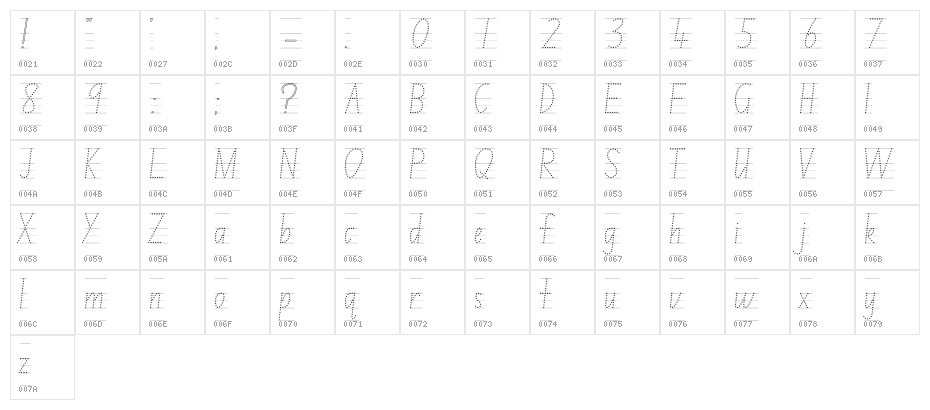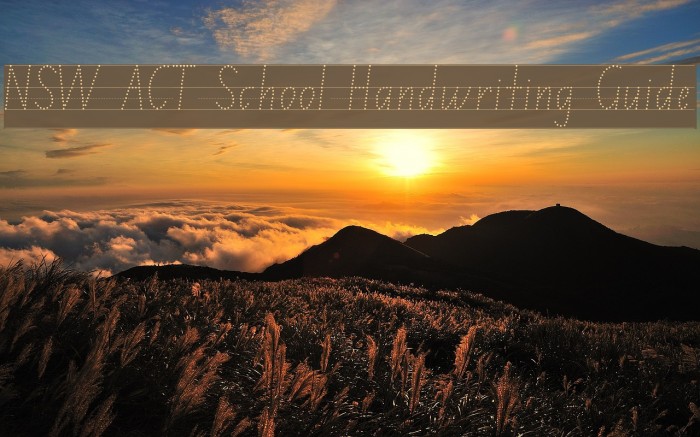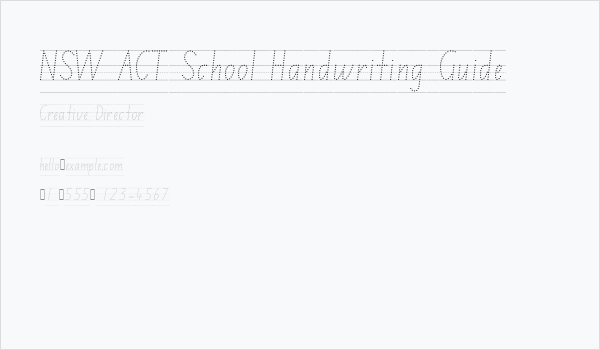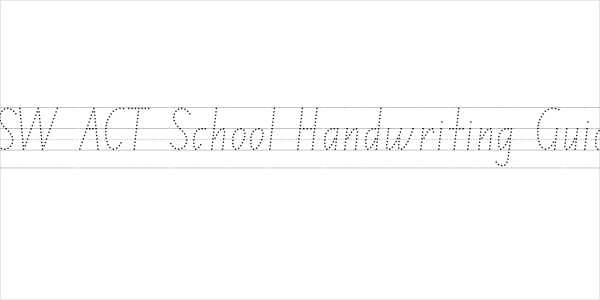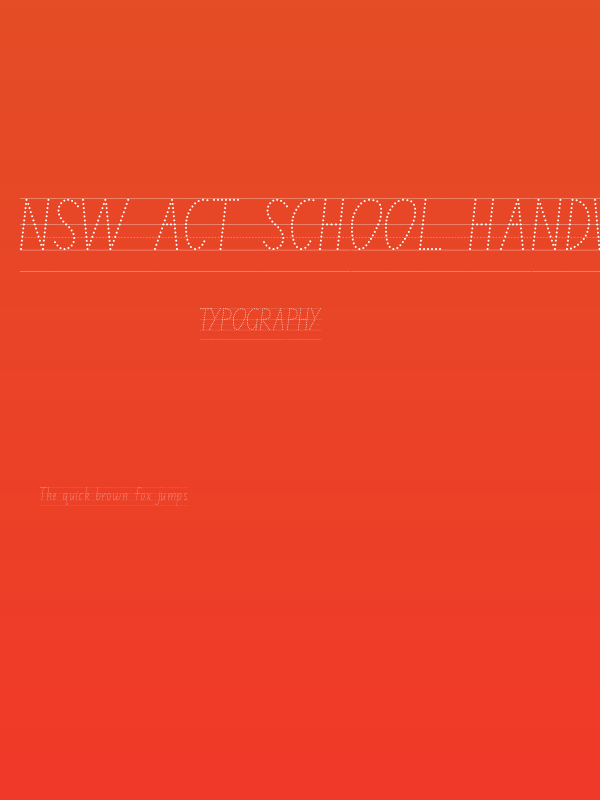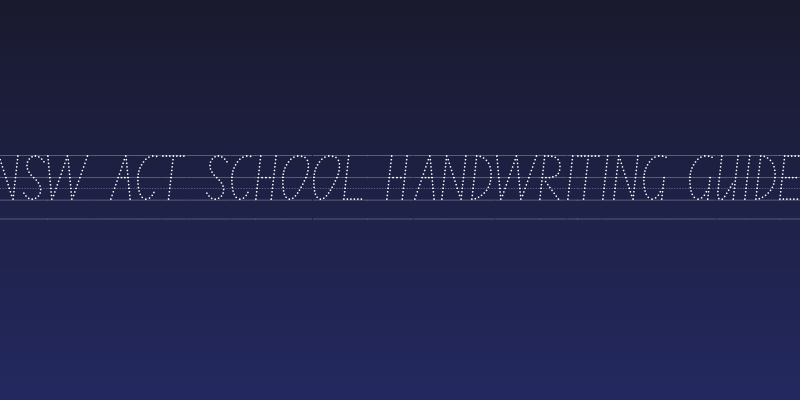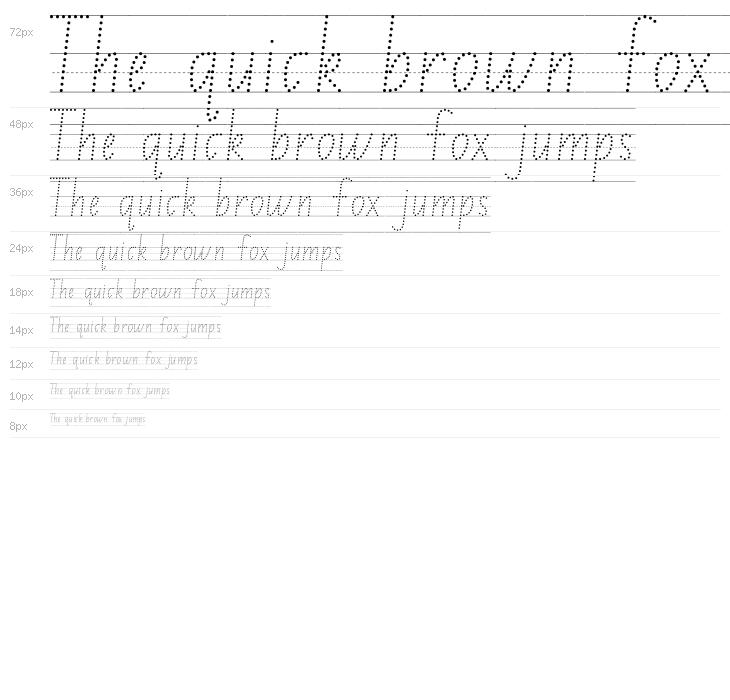
NSW ACT School Handwriting Guide Font
NSW ACT School Handwriting Guide Description
This font is designed as a handwriting guide, featuring dotted lines to assist in learning letter formation. Each character is constructed with evenly spaced dots, providing a clear path for tracing. The uppercase and lowercase letters are crafted to align with traditional handwriting styles, emphasizing clarity and simplicity. The numerals and special characters follow the same dotted pattern, ensuring consistency across all elements. This guide is particularly useful for educational purposes, helping students develop their handwriting skills with precision and confidence.
| Overall Style | Educational |
| Use Case | Handwriting practice, educational tools. |
| Proposed Projects | Ideal for educational materials, handwriting practice worksheets, and teaching aids. |